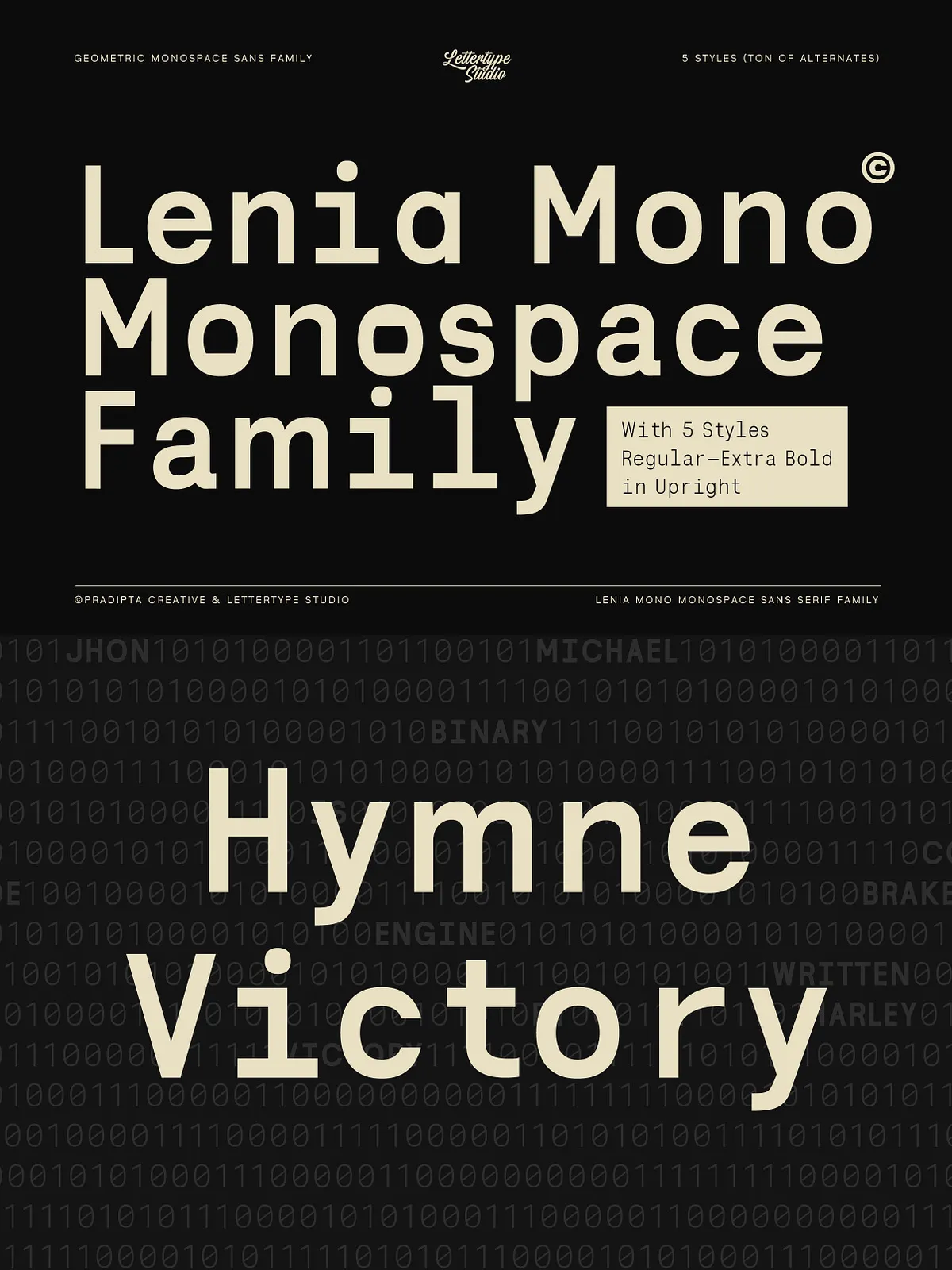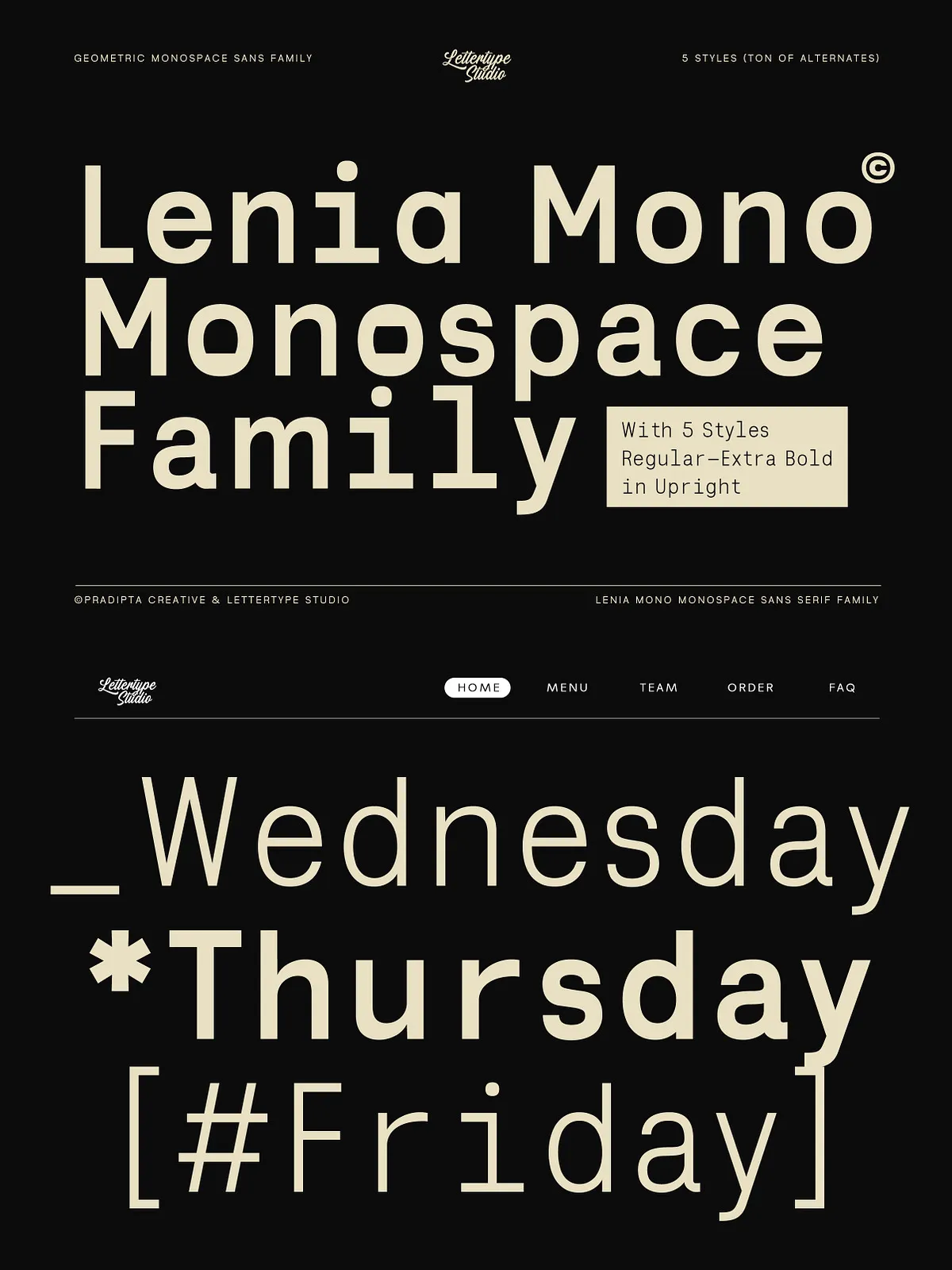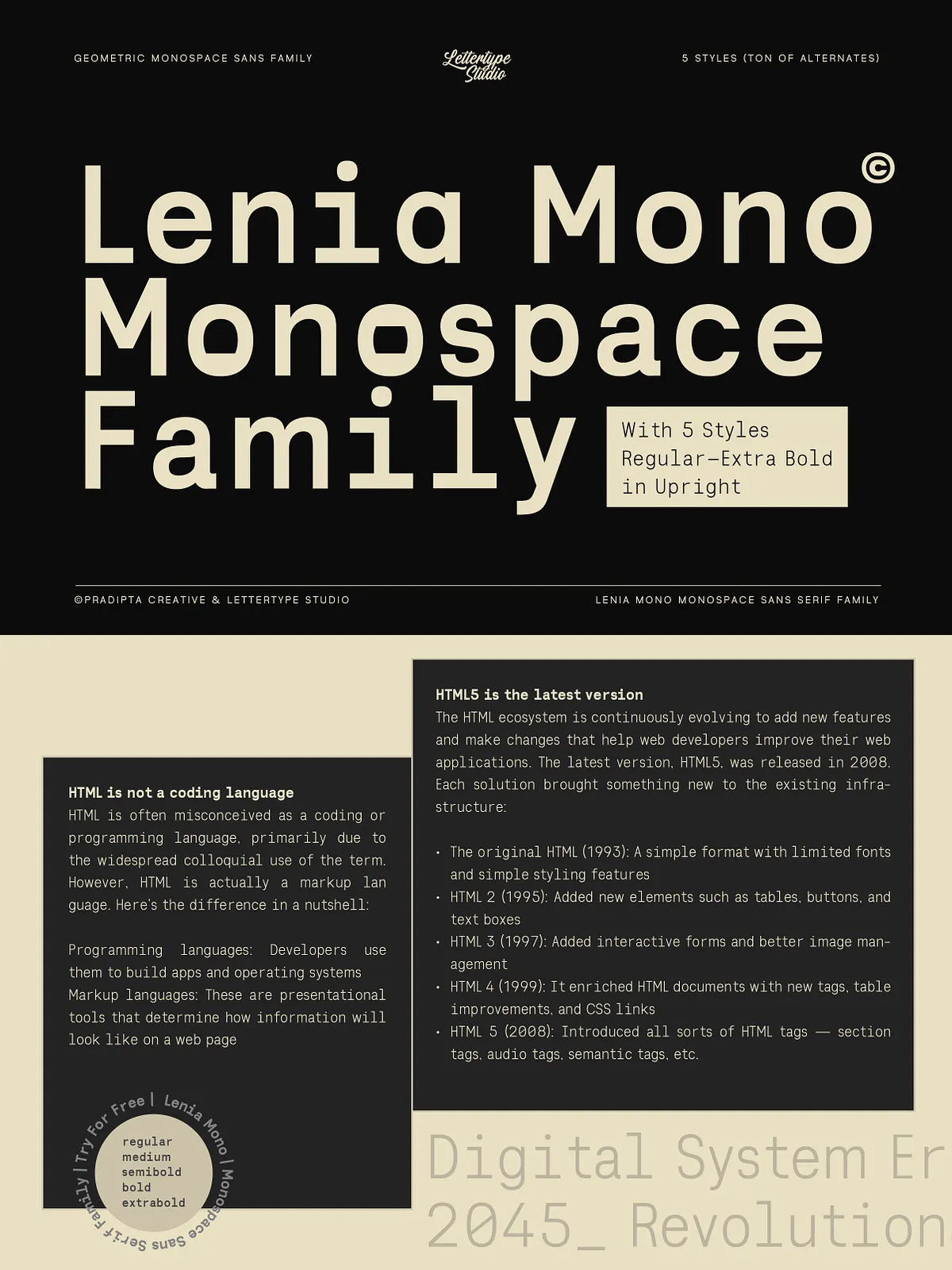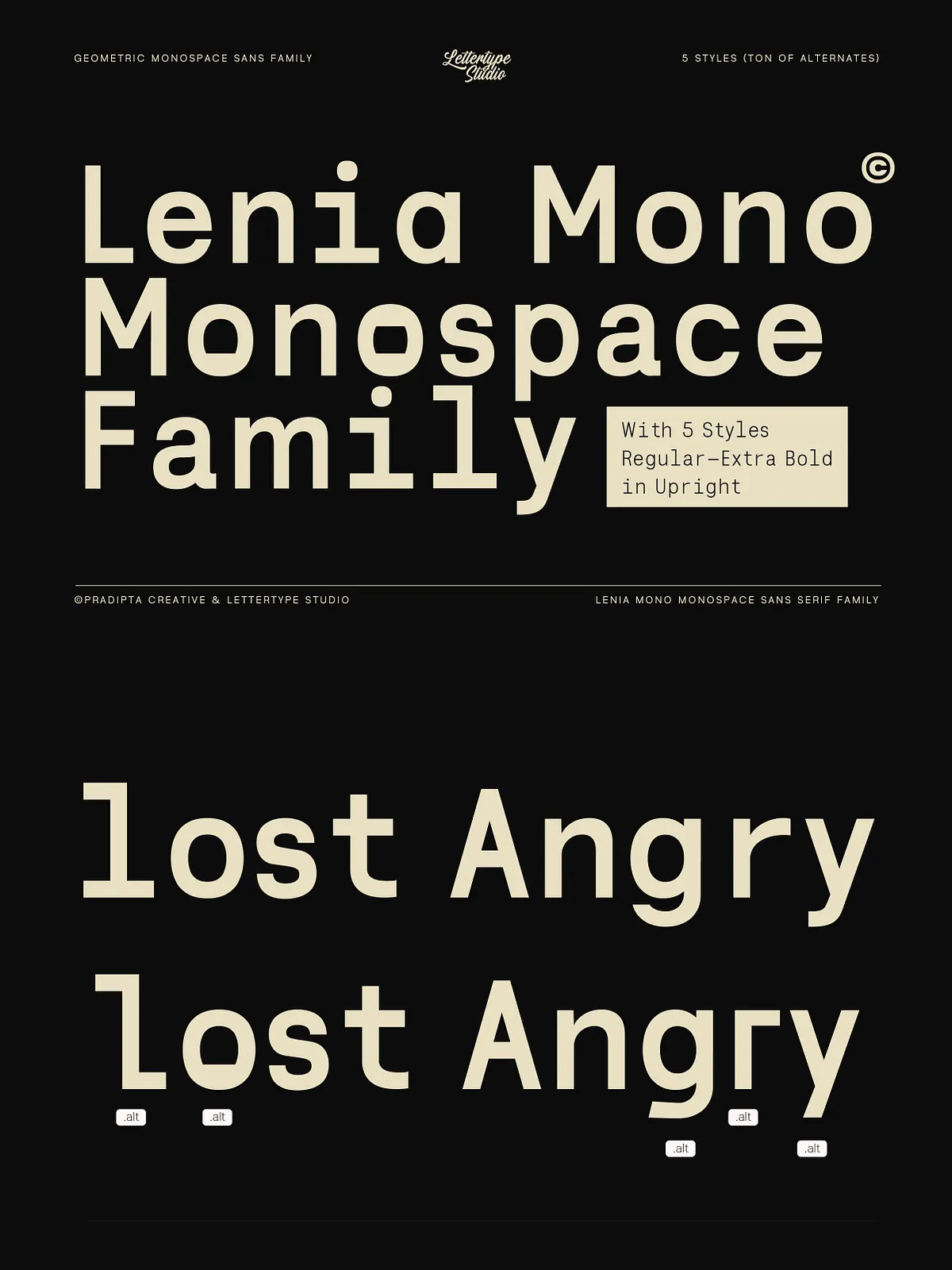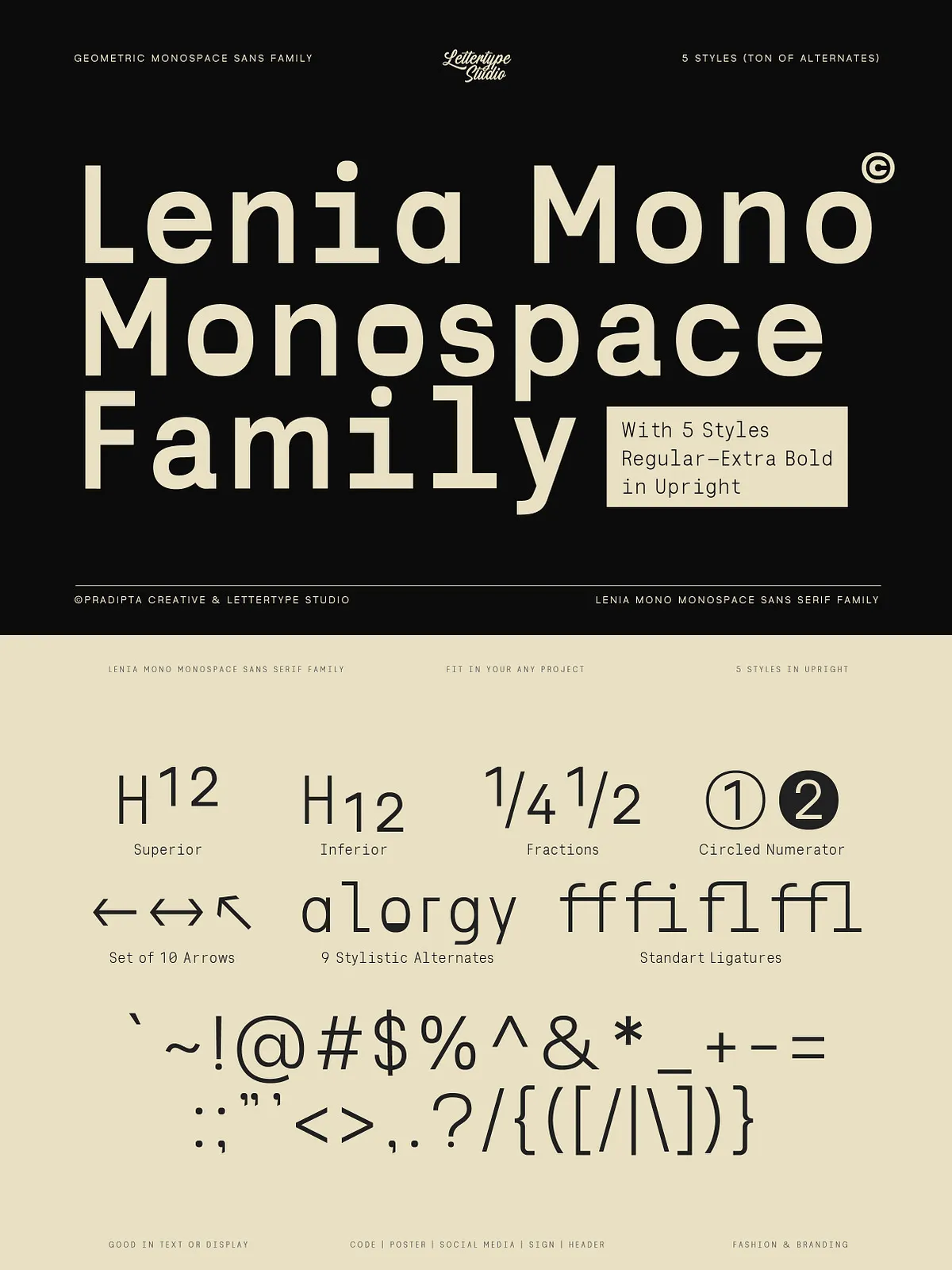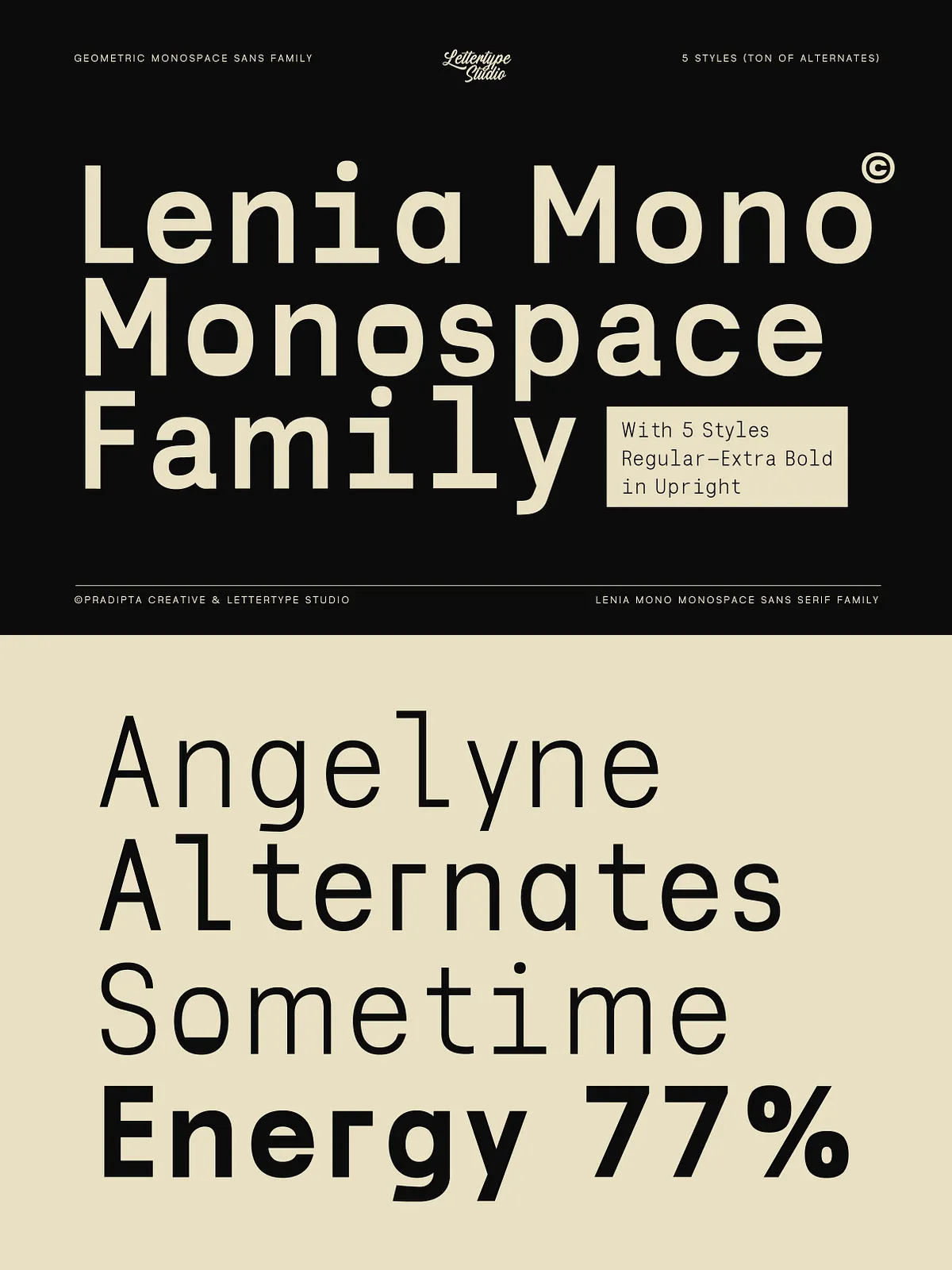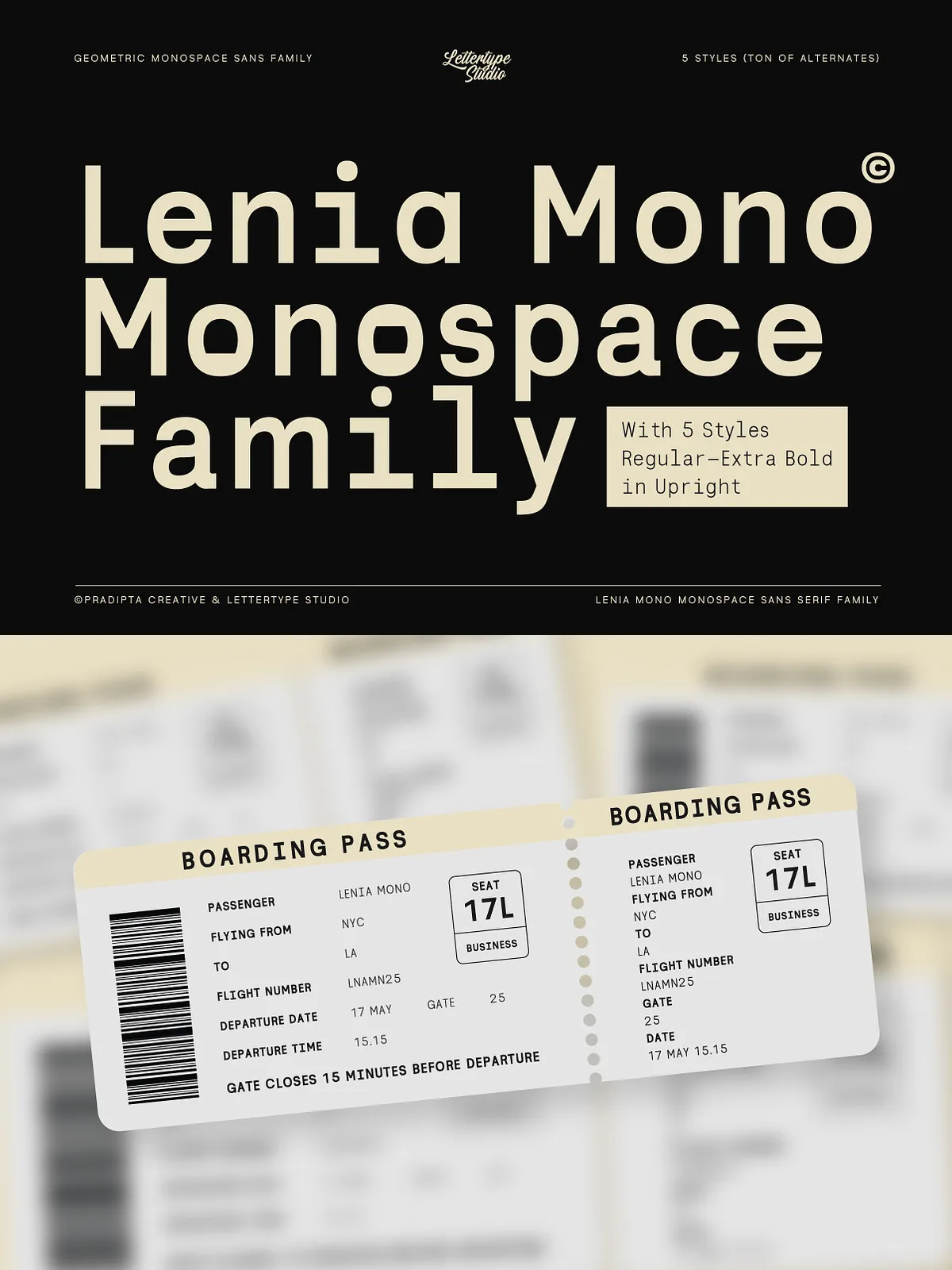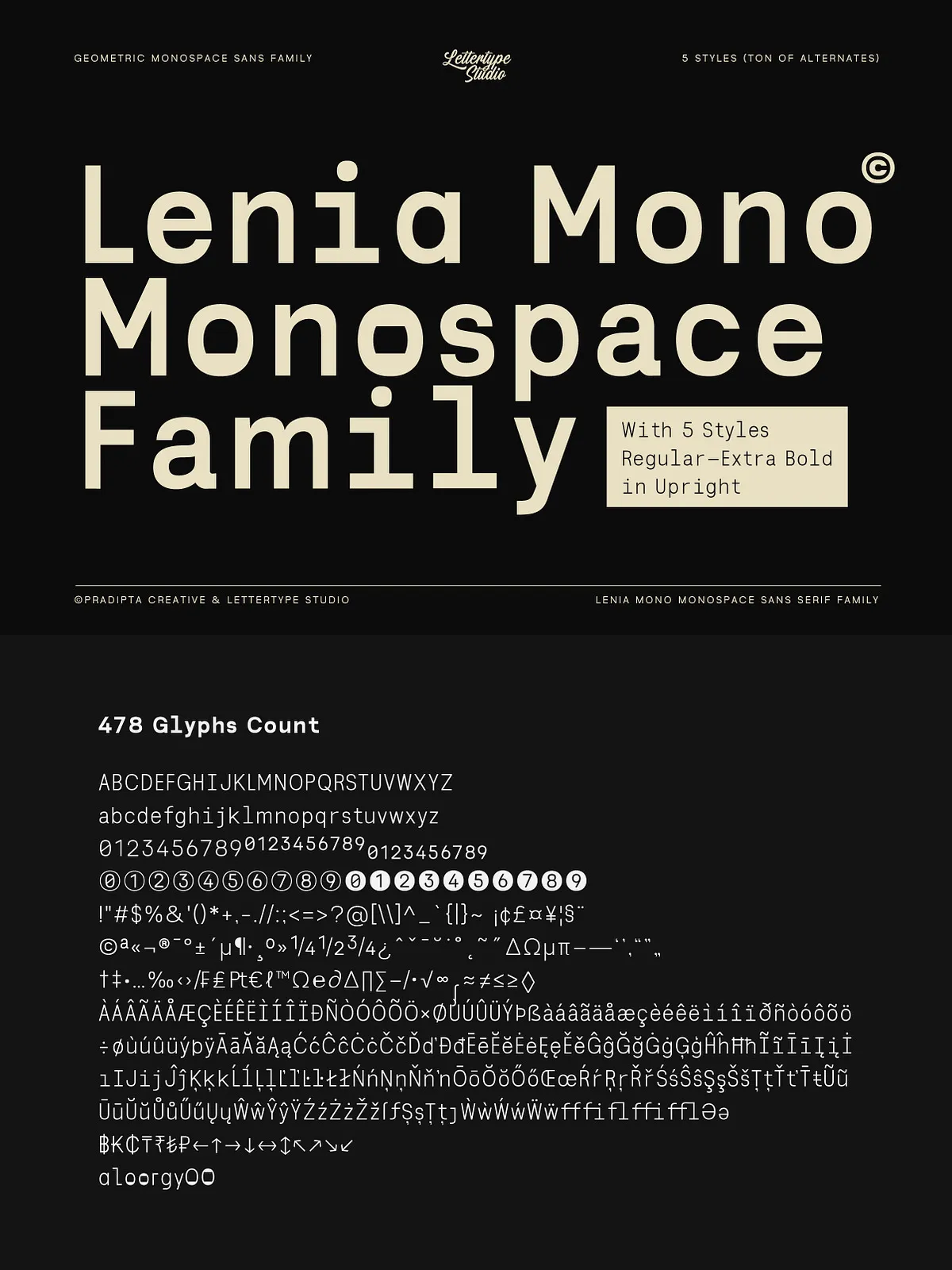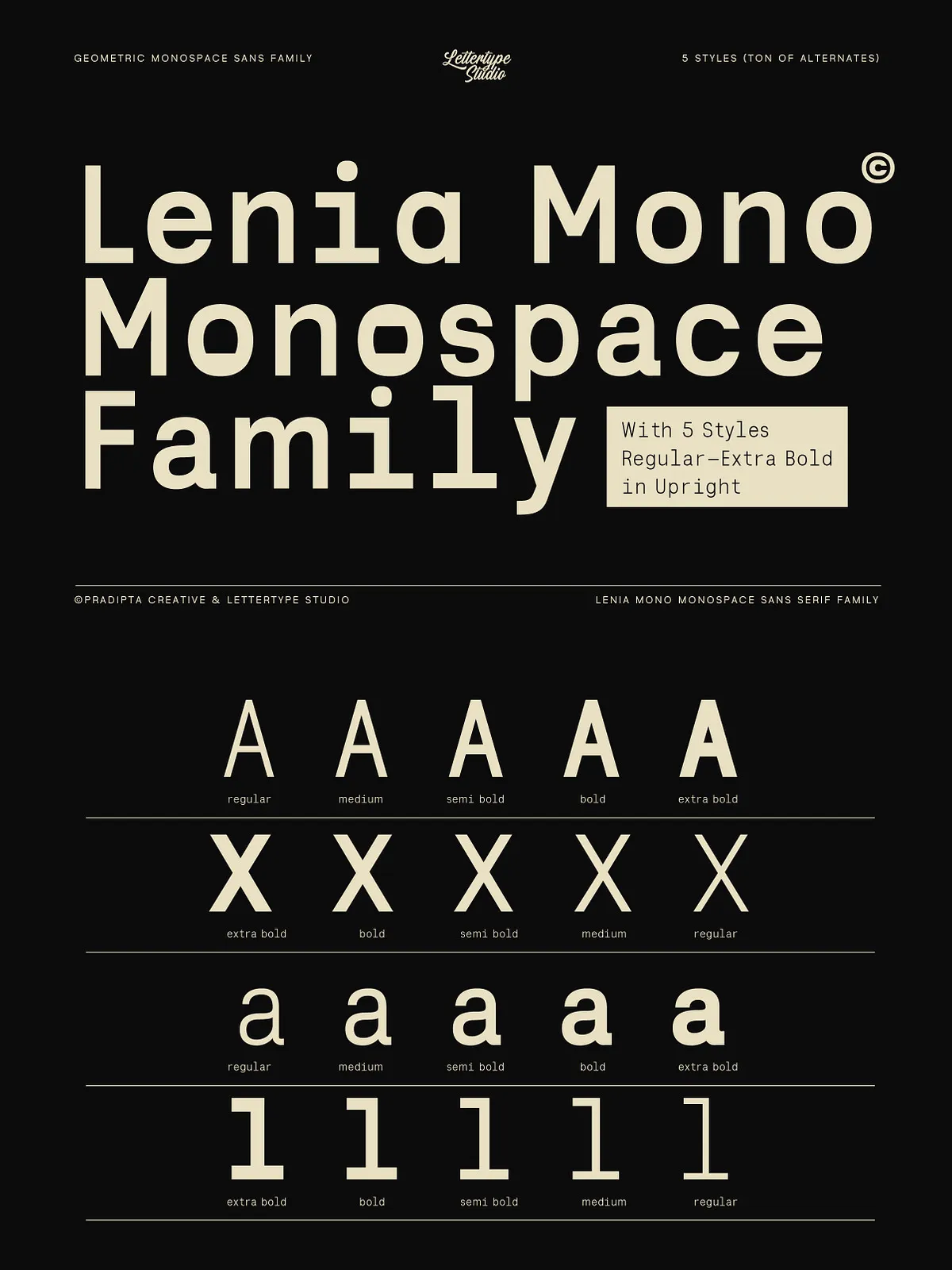
Meet Lenia Mono, a finely tuned monospace sans-serif font family built for professionals who demand clarity, consistency, and control. This isn’t just a font—it’s a design tool engineered for coding environments, technical writing, UI/UX systems, and modern minimalist design. With its geometric precision and clean, open structure, Lenia Mono delivers uninterrupted readability and visual harmony across digital and print media.
Every character maintains uniform width, ensuring perfect alignment in code blocks, terminal outputs, and data tables. This uniformity isn’t just aesthetic—it’s functional. It eliminates visual drift, reduces cognitive load, and enhances legibility under pressure. Whether you’re debugging complex scripts or designing a dashboard, Lenia Mono keeps you focused on the content, not the font.
5 Powerful Weights for Dynamic Design Hierarchy
From subtle to bold, Lenia Mono offers five distinct weight styles—Regular, Medium, Semi-Bold, Bold, and Extra-Bold—each meticulously crafted to support strong visual hierarchy. Use lighter weights for body text and documentation, and crank up to Extra-Bold for impactful headlines, brand logos, and UI headers.
- Regular – Ideal for everyday code, documentation, and clean editorial content.
- Medium – A balanced weight that adds emphasis without overwhelming.
- Semi-Bold & Bold – Perfect for section headers, UI elements, and highlighting key code sections.
- Extra-Bold – Command attention in branding, posters, or tech-inspired visual design.
Upright Style, No Italic Distractions
Lenia Mono is designed in an upright style only—no italics. This decision enhances readability in technical contexts where consistency is critical. It ensures no character slanting or variation disturbs the alignment of code, data, or structured content. For emphasis, leverage weight contrast and spacing—clean, professional, and focused.
Advanced OpenType Features for Professional Design
Lenia Mono isn’t just about shape—it’s about functionality. The font includes a wealth of OpenType features to empower advanced typographic control:
- Stylistic alternates for key characters like
O,a,l,o,r,g, andy—give your text a personalized touch. - Figure variations: Superior and inferior figures, fractions, circled numerators (e.g., ¹, ², ³), and standard numerals—perfect for technical notation and elegant typography.
- Arrow glyphs: Directional symbols and mathematical arrows for flowcharts, UI labels, and technical illustrations.
- Extended Latin language support: Full compatibility with French, German, Spanish, Italian, Portuguese, Dutch, Swedish, and more—ideal for global teams and international projects.
500+ Glyphs — Built for Every Typographic Need
With over 500 glyphs, Lenia Mono goes beyond the basics. It includes punctuation, ligatures, diacritics, and symbols tailored for developers, editors, and designers. Whether you’re writing in LaTeX, designing a multilingual site, or crafting a technical manual, Lenia Mono has your back.
Perfect For: Code, Design, and Technical Precision
Whether you’re building a modern website, designing a developer-focused app, or writing technical documentation, Lenia Mono excels in these key areas:
- Code interfaces & terminals – Clean, aligned output that reduces eye strain and boosts focus.
- UI/UX design – Perfect for dashboards, buttons, dropdowns, and data visualization.
- Technical documentation – Clear, structured, and professional-looking layout.
- Minimalist web & editorial design – Creates serene, intentional layouts with strong typographic identity.
- Branding & tech-inspired visuals – Evokes modernity, logic, and sophistication.
Get the Font That Works as Hard as You Do
Lenia Mono is more than a typeface—it’s a silent partner in precision. It empowers developers to write cleaner code, designers to create sharper interfaces, and writers to organize complex ideas with clarity.
Build smarter. Code cleaner. Design with confidence. Lenia Mono is your font for the future of work.